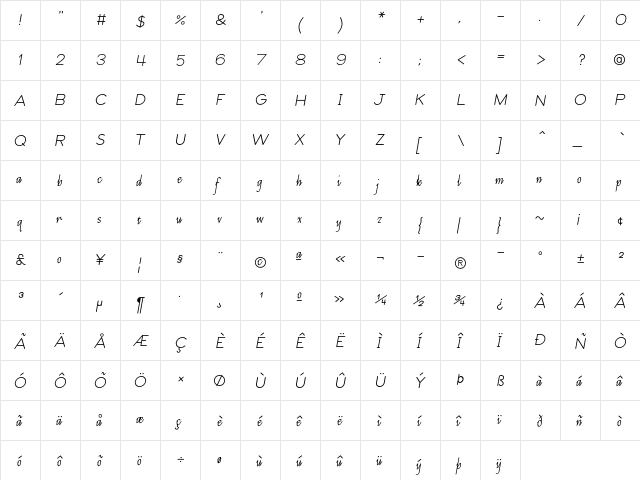
LetsTrace Italic
Design Context for LetsTrace Typeface
LetsTrace takes a measured approach to typography — its balanced proportions and neutral character make it a reliable workhorse for both digital and print work. The slanted form adds forward momentum and visual energy.
Pro Tip: Try LetsTrace for annotation and caption copy alongside an upright companion — the contrast in angle creates a dynamic but ordered typographic system.